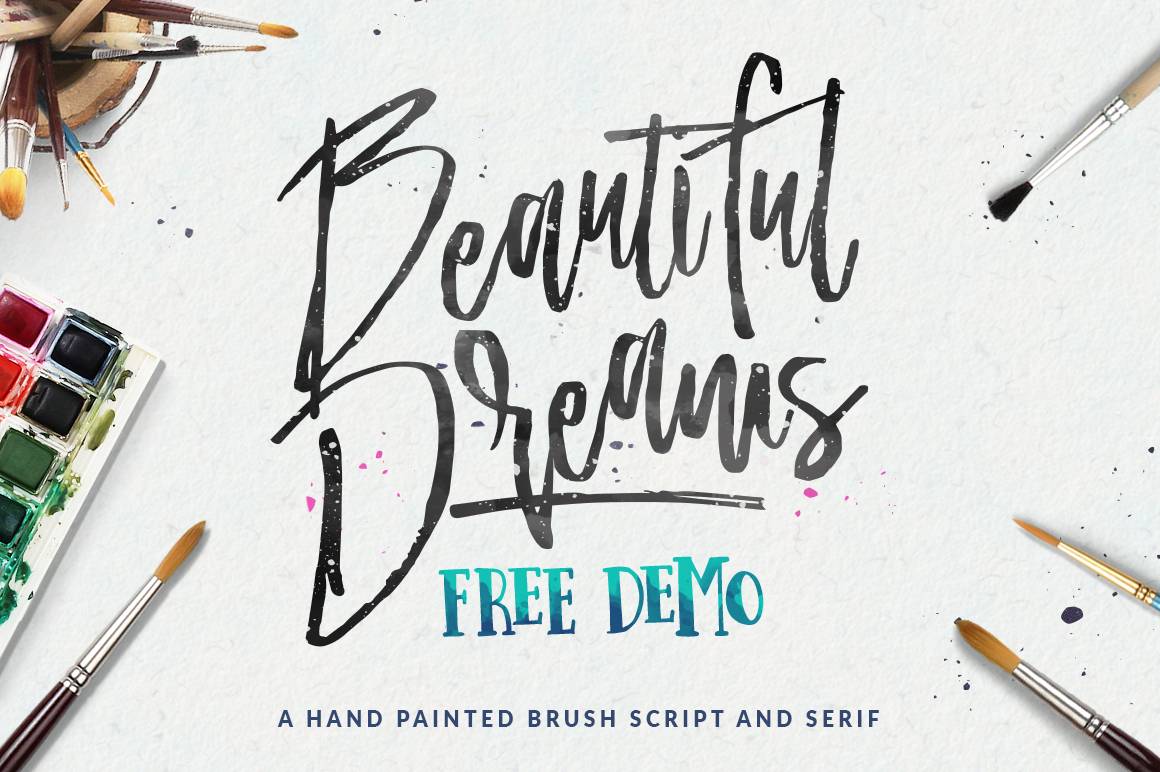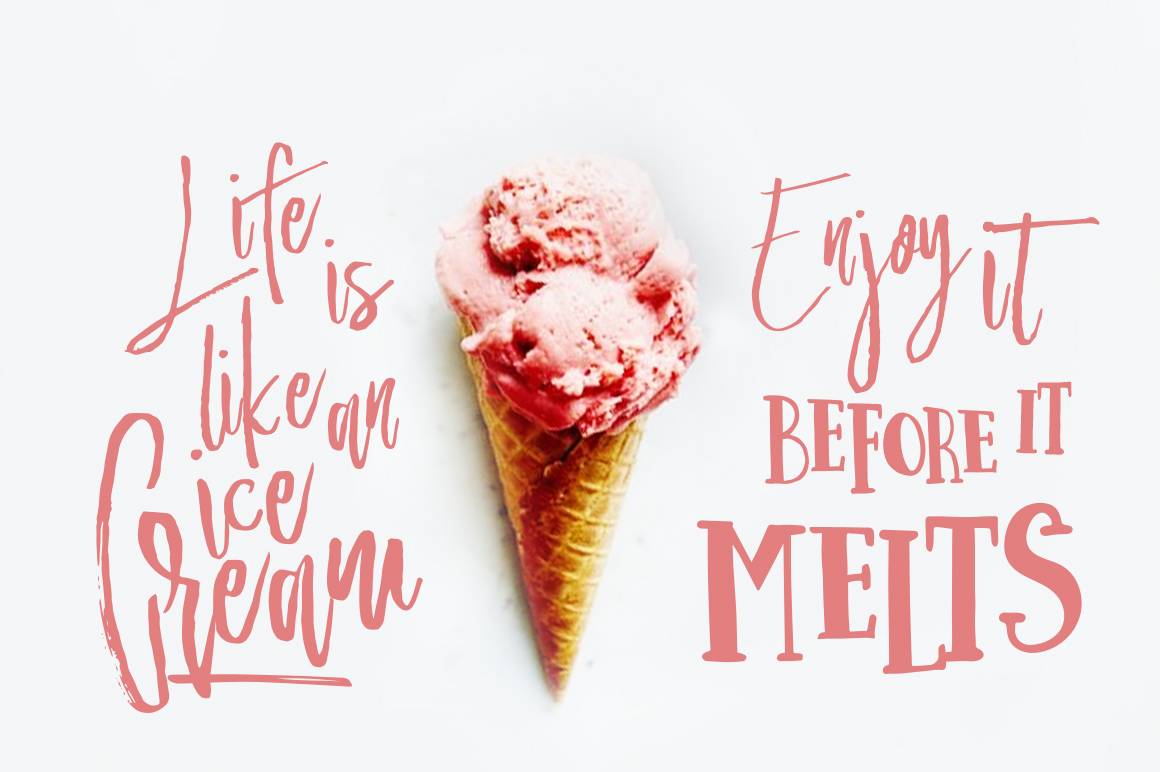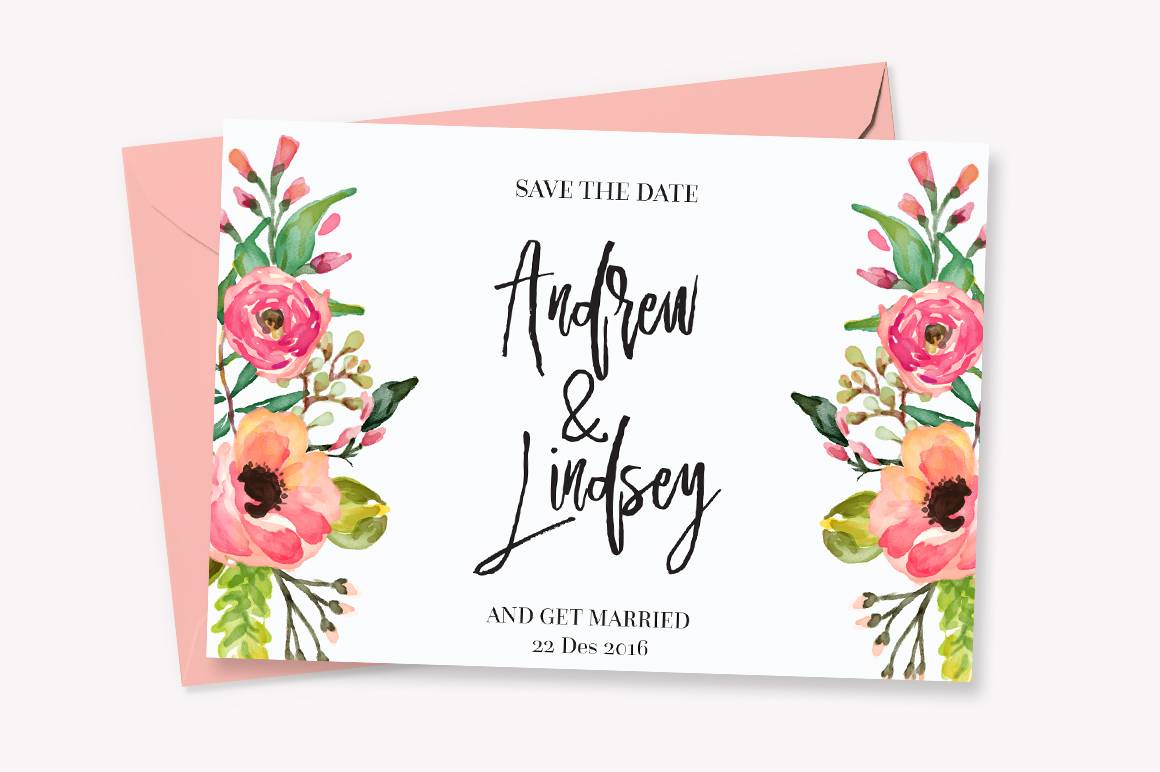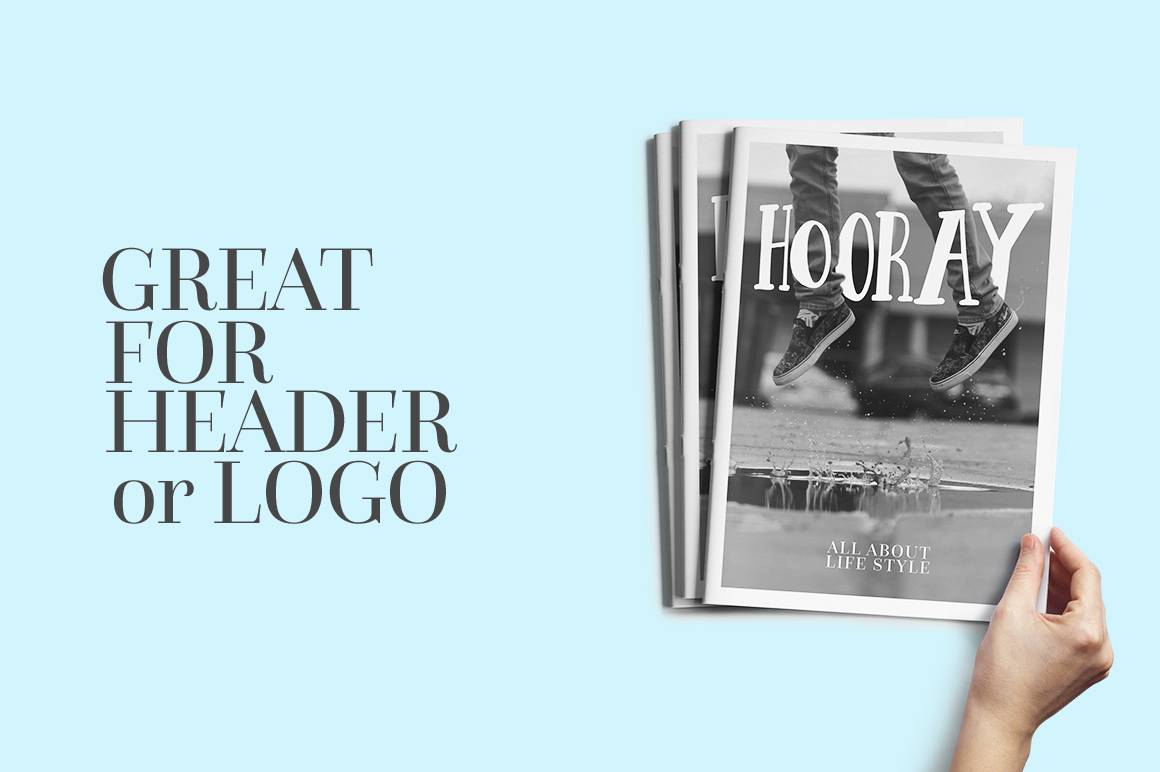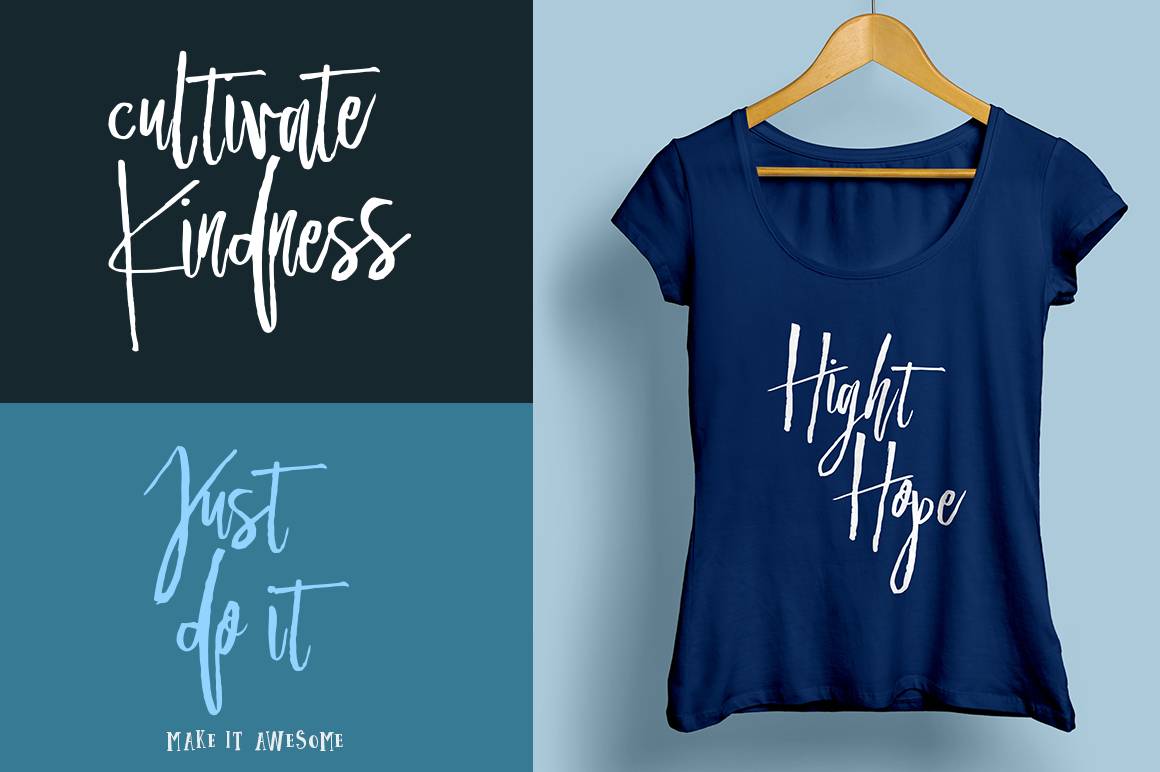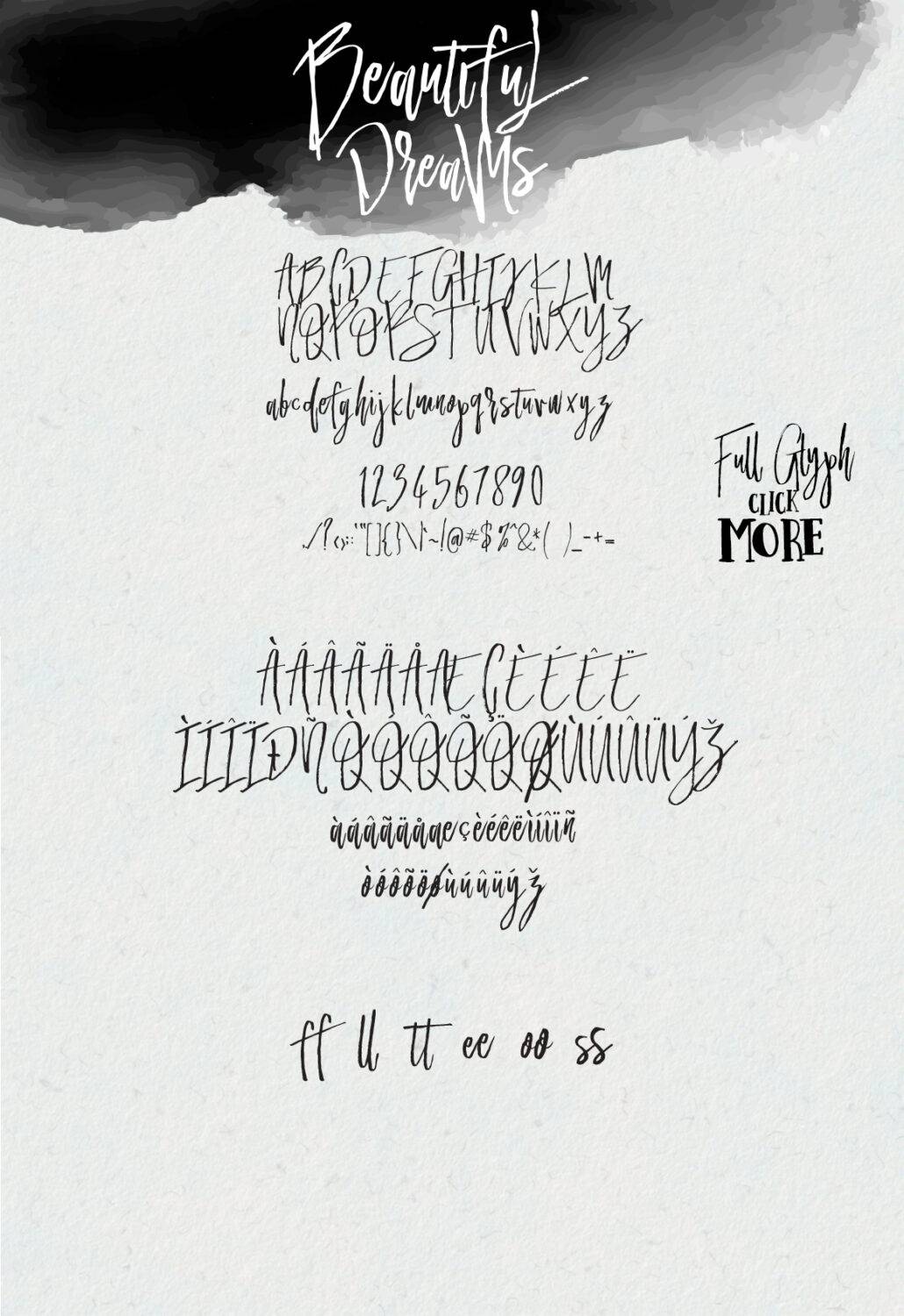
Beautiful Dreams Demo is a lively and expressive brush script font with a raw, hand-painted feel. Its irregular strokes and dynamic letterforms give it an artistic, playful charm, making it perfect for creative projects, personal branding, and designs that seek a casual yet stylish touch. This font works best in logos, headlines, and packaging where a unique, handcrafted look is desired.
Beautiful Dreams Demo Font
About Beautiful Dreams Demo Font